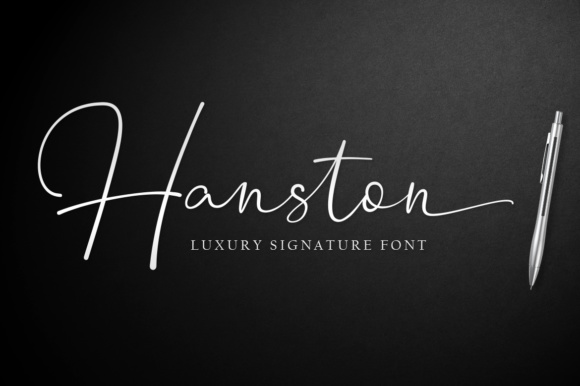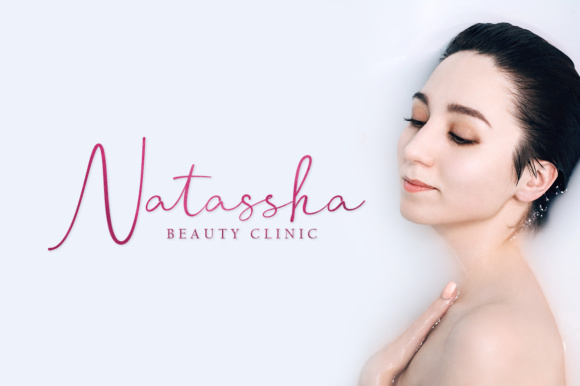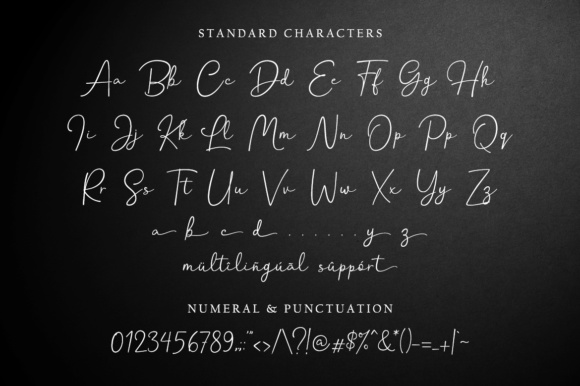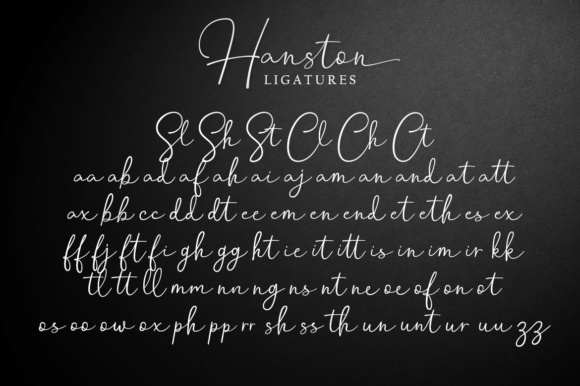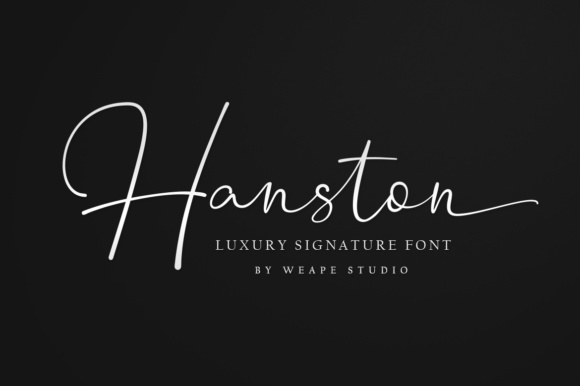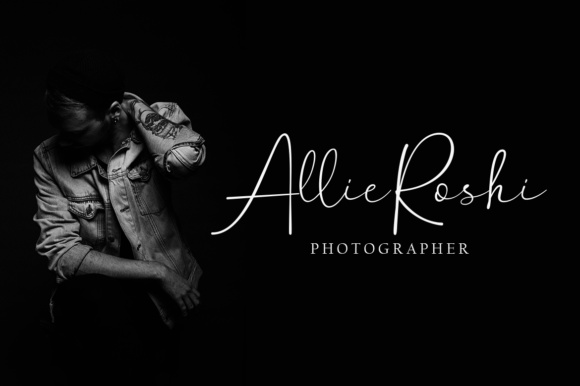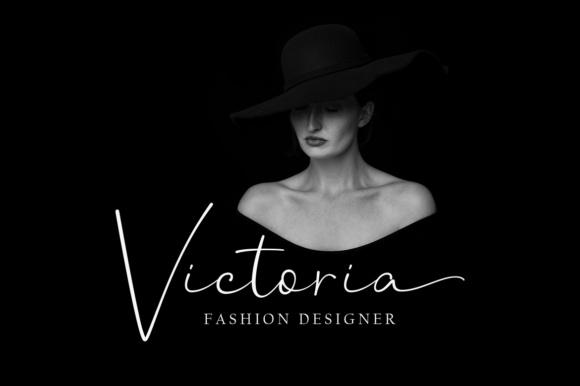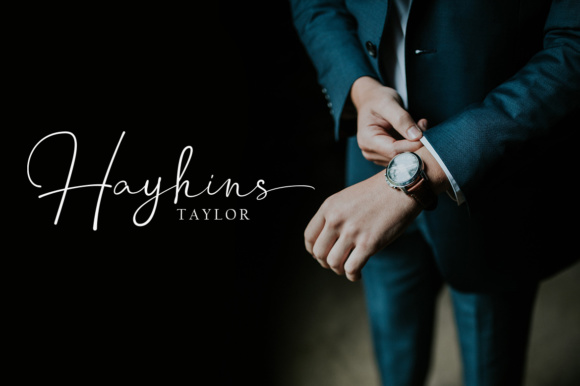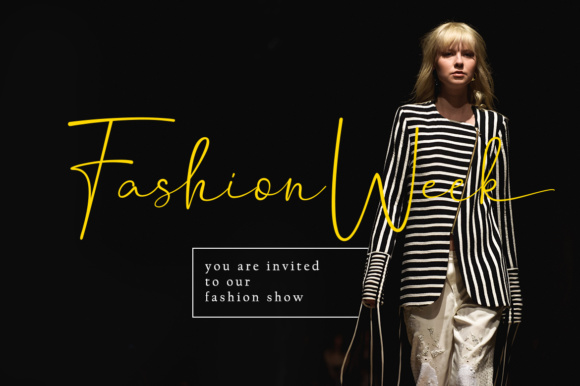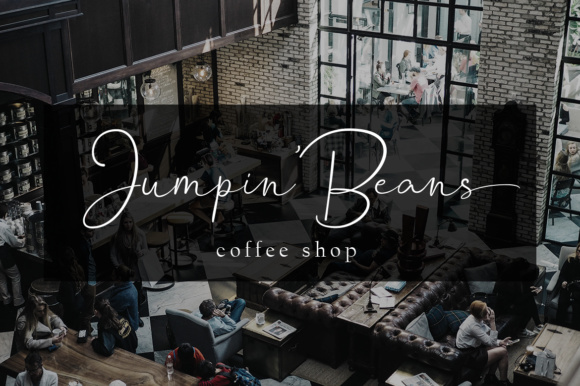
HomeScript FontsHanston Font Script Fonts Hanston Font FacebookXPinterestWhatsApp Hanston Font Poster 2 Hanston Font Poster 3 Hanston Font Poster 4 Hanston Font Poster 5 Hanston Font Poster 6 Hanston Font Poster 7 Hanston Font Poster 8 Hanston Font Poster 9 Hanston Font Poster 10 Hanston Font Poster 11 Hanston Font Poster 12 Hanston Font Poster 13 About Hanston Font The Hanston is a modern calligraphy typeface. Its elegant letters will give your design an luxury feel. DOWNLOAD ON CREATIVE FABRICAThis font is sold and delivered by Creative Fabrica. Font Canyon may earn a commission if you buy through this link. People also explored Refullha Font Aday Font Hanedda Font Good Dogo Font Grandma Font Cool Font Good Friend Font Just Smile Adisty Font 296 0 TagsHanston Font Previous articleGredom Script FontNext articleOzora Script Font LEAVE A REPLY Cancel reply Comment: Please enter your comment! Name:* Please enter your name here Email:* You have entered an incorrect email address! Please enter your email address here Website: Save my name, email, and website in this browser for the next time I comment. Personal Use Free Daisy Script Personal Use Free Read more about this font Vanilla Whale Personal Use Free Read more about this font The Kingdom Personal Use Free Read more about this font Lanilla Personal Use Free Read more about this font BLOG How to Cut Any Font on Cricut: Convert a Font to SVG (Free) Turn any font into a clean SVG so it cuts crisp on Cricut - a quick 3-step workflow using a free font-to-SVG tool. Exploring Font Trends Best Fonts for T-Shirt Design – Top 2025 Picks How to Install and Use Fonts on Windows, macOS, and Web Projects